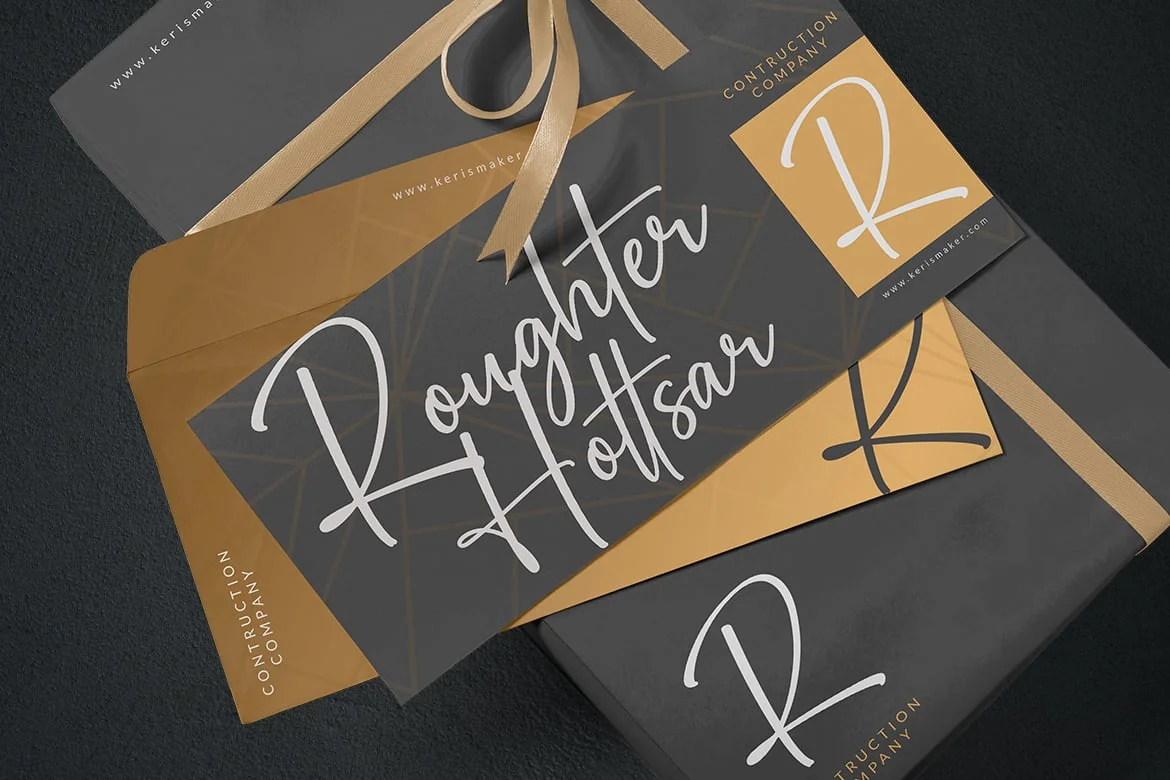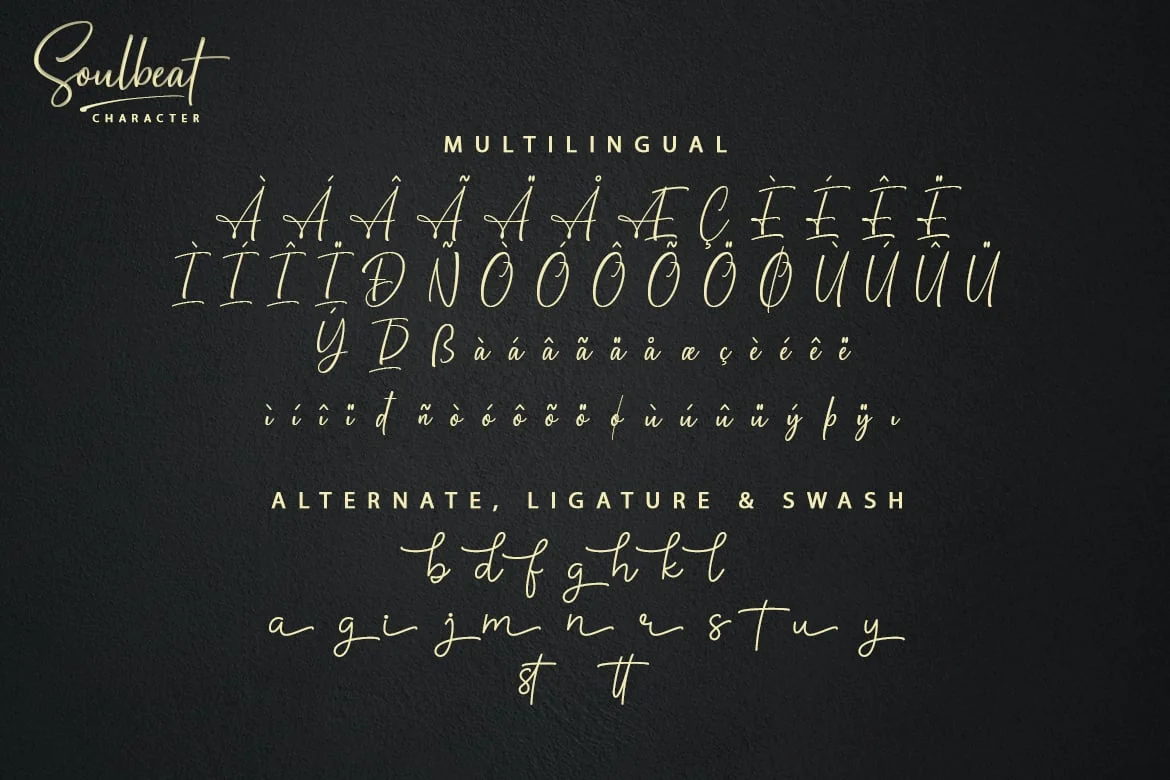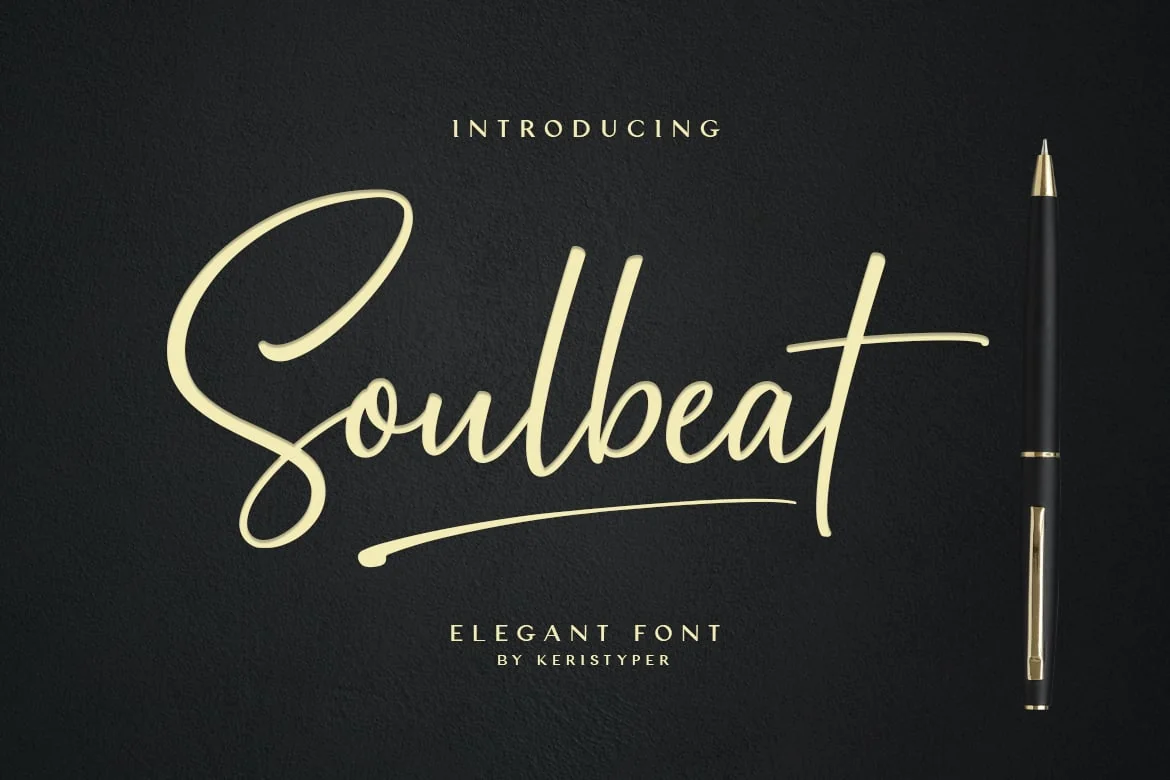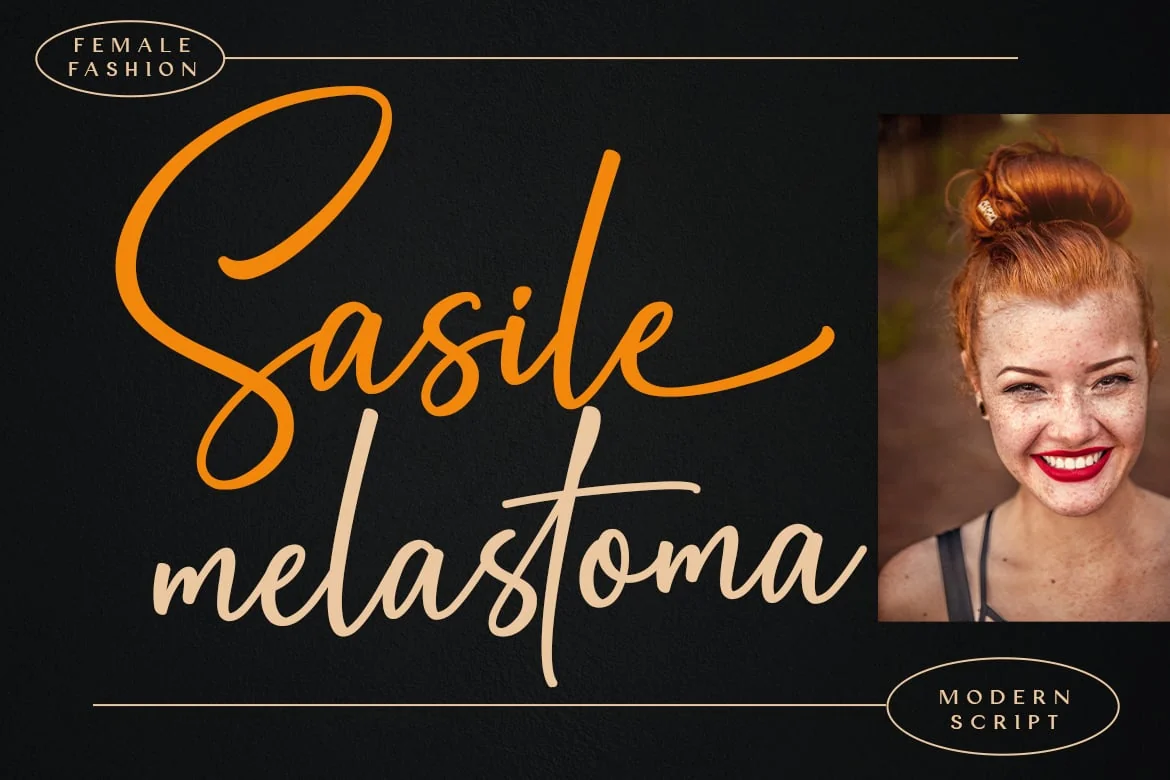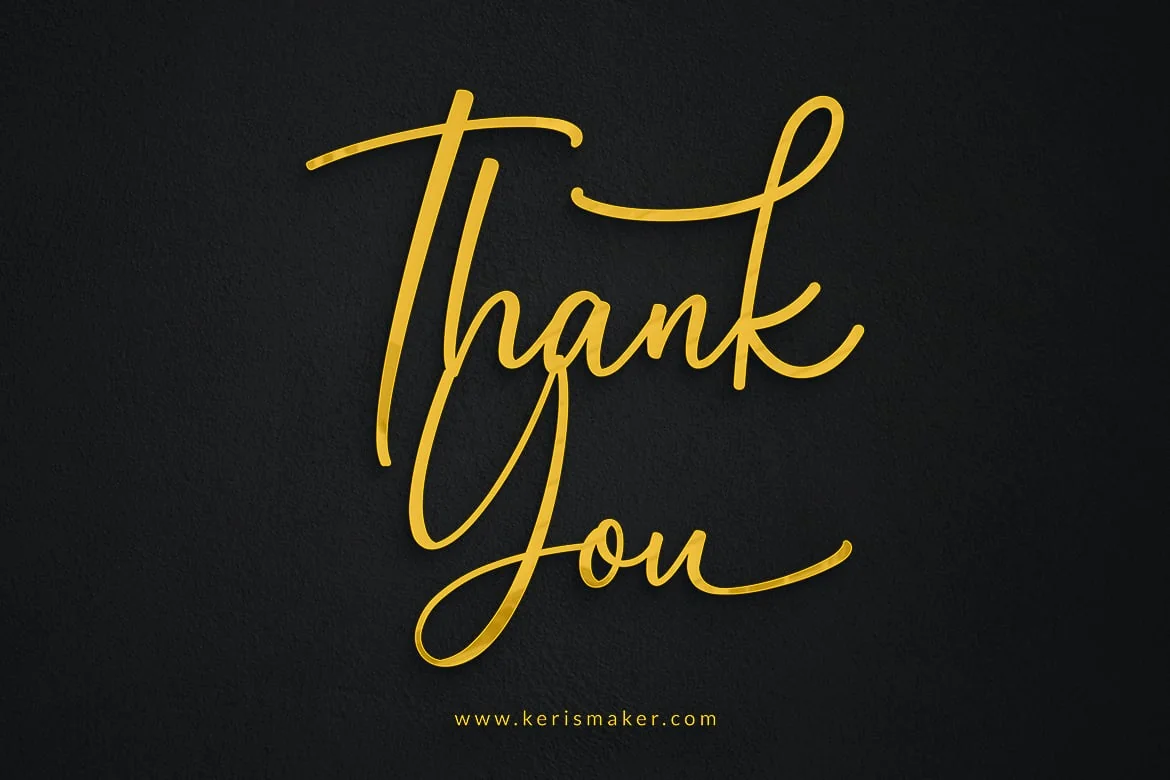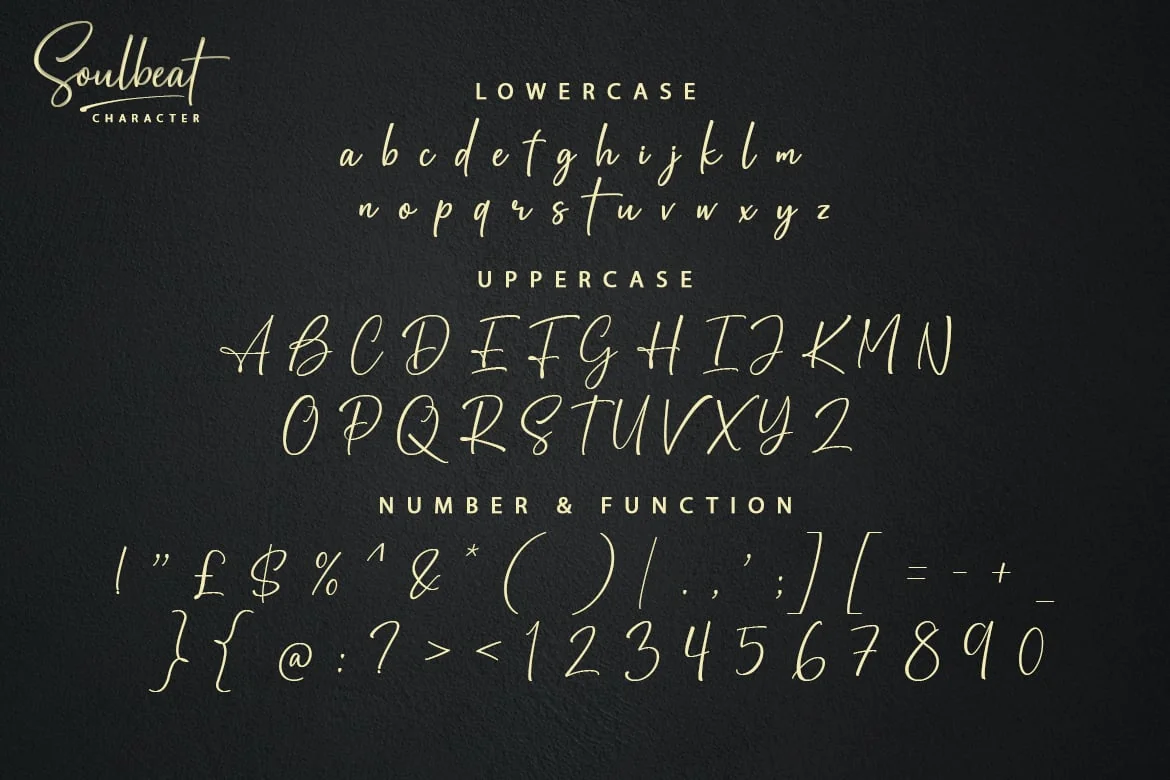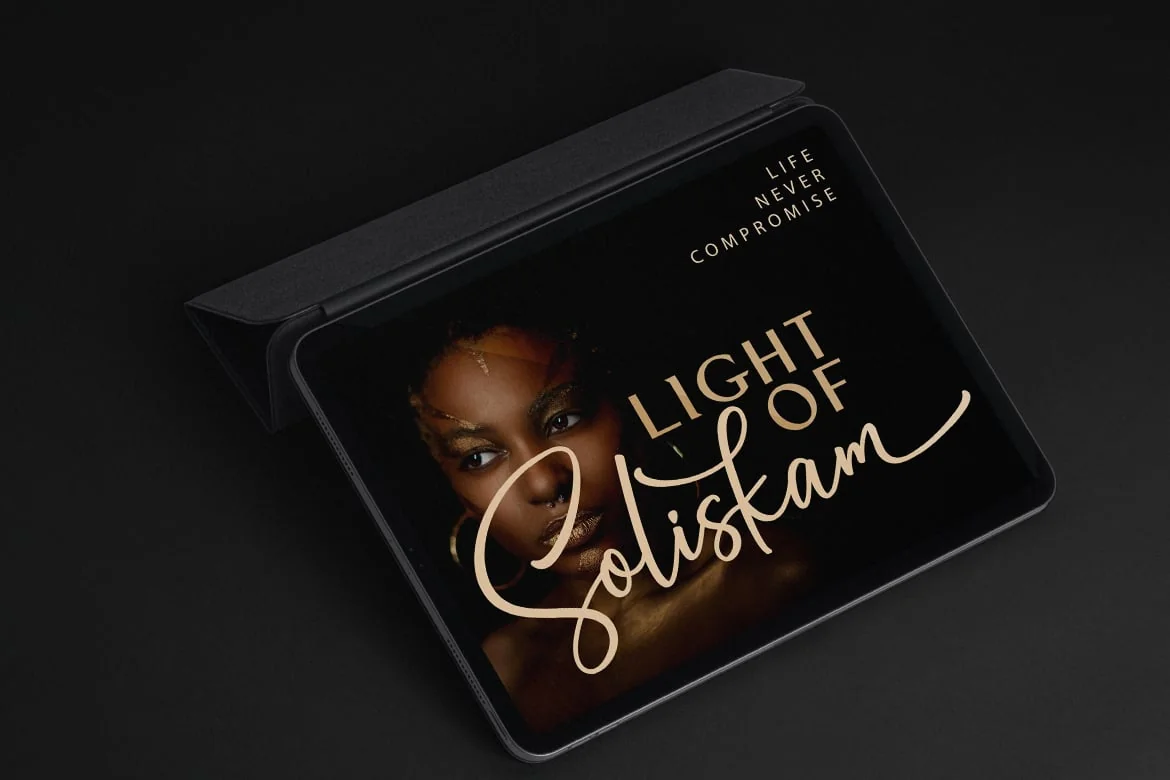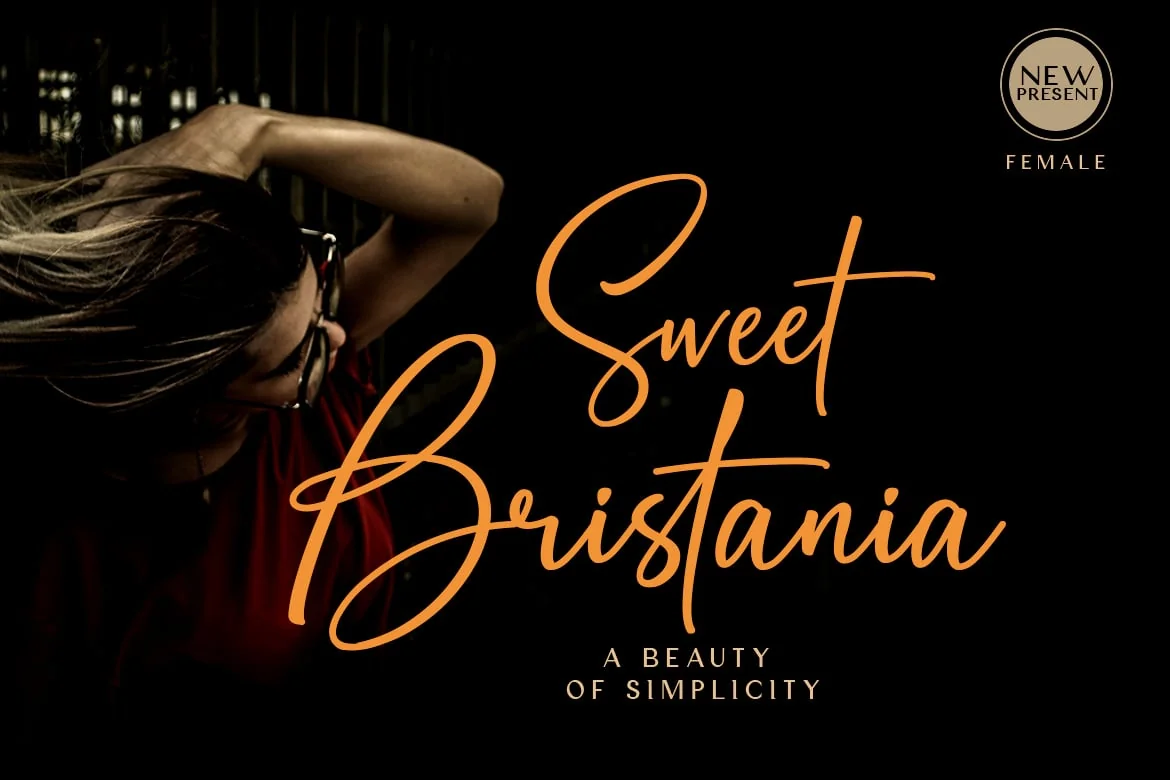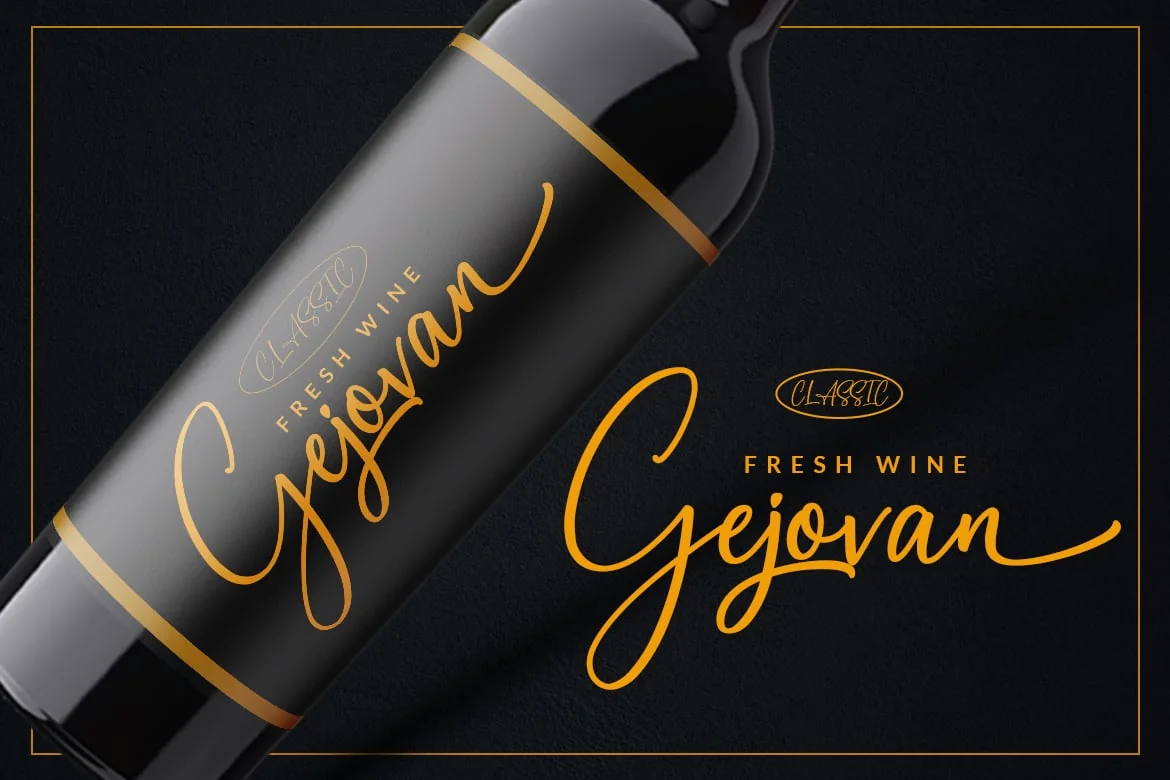
Soulbeat Signature Font
Introducing Soulbeat Signature Font which has an elegant and natural hand lettering brush style like handmade. This font is best suited for your design projects that are fun, bold, and sporty. Can also be applied to logotype designs, website headers, making multiple letters for quotes, t-shirt designs etc.
Soulbeat Signature Fontmultilingual support:
Afrikaans, Albanian, Catalan, Danish, Dutch, English, Estonian, French, Finnish, German, Icelandic, Indonesian, Italian, Malay, Norwegian, Portuguese, Spanish, Swedish, Zulu, and many more.